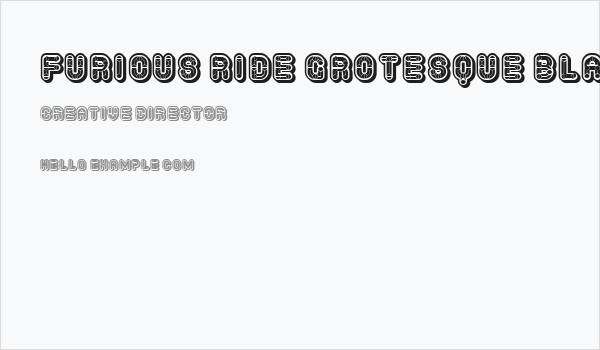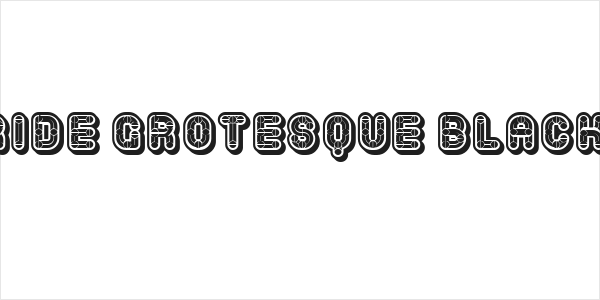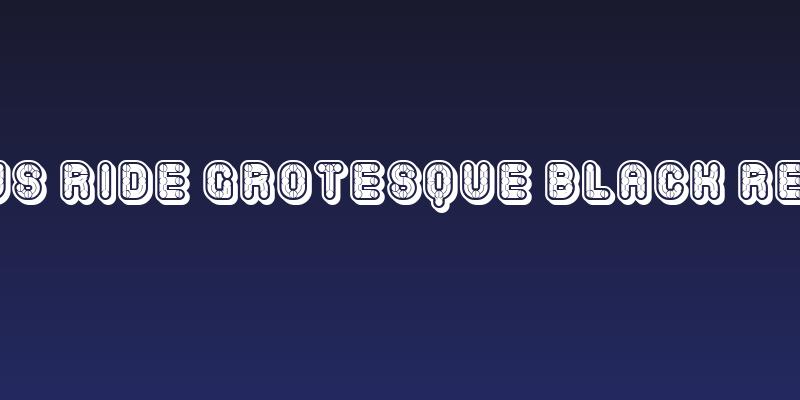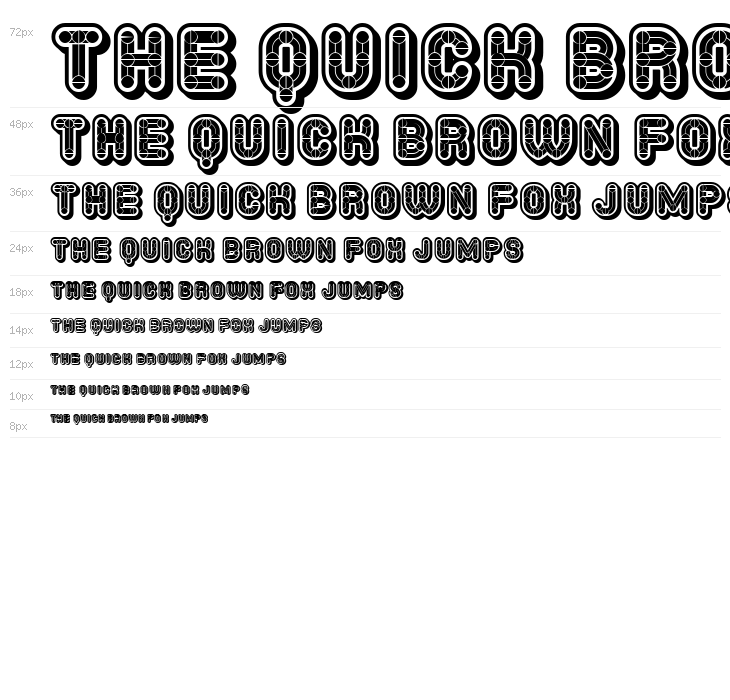
Furious Ride Grotesque Black Regular Font
Furious Ride Grotesque Black Regular Description
This font features a bold and dynamic design with a unique geometric pattern within each character. The letters are outlined with a thick black stroke, creating a striking contrast against the inner white space filled with intricate line work. The overall appearance is modern and eye-catching, making it suitable for attention-grabbing headlines or artistic projects. The uppercase letters are consistent in height and width, providing a uniform look across the alphabet. The style is reminiscent of urban and industrial themes, with a touch of futuristic flair.
| Proposed Projects | Ideal for posters, album covers, branding, and any project requiring a bold statement. |